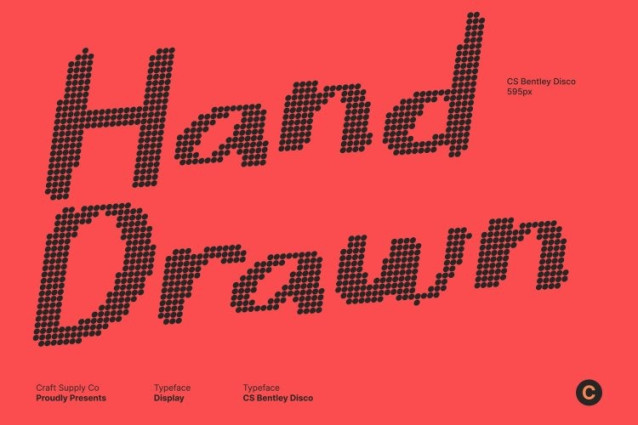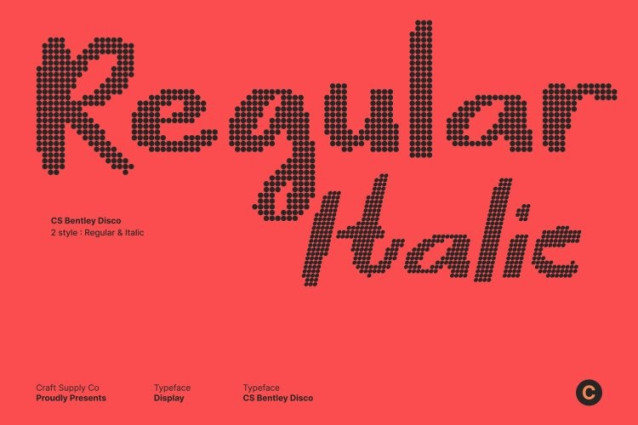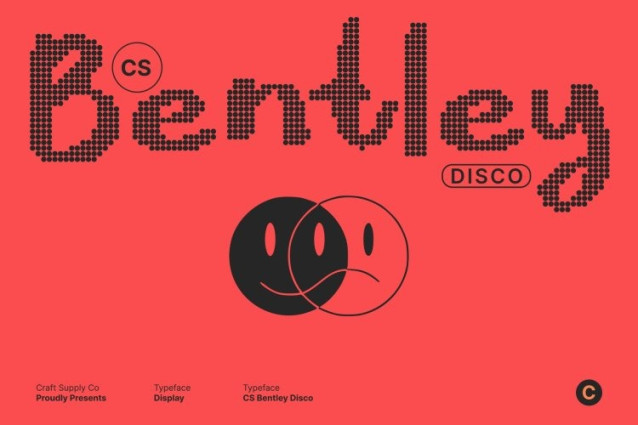
CS Bentley Disco Font
CS Bentley Disco Font This is a soft, expressive handwritten font that captures the natural flow of pen strokes with ease and warmth. Each letter moves smoothly with an organic rhythm, enhanced by a subtle disco-era influence inspired by the relaxed, feel-good creativity of the 70s to early 80s. The result is a handwritten style that feels personal, joyful, and effortlessly inviting.
Warm, Authentic Texture with Retro Soul
Delicate imperfections give this font a handcrafted texture that feels genuine and human. Its natural movement and soft curves reflect a laid-back retro spirit evoking cozy moments, warm lights, and carefree creativity. This balance of authenticity and nostalgic charm makes the font feel friendly, expressive, and emotionally engaging.
Perfect for Personal Branding and Cheerful Quotes
This font shines in personal branding projects that value closeness and personality. From signature-style logos and lifestyle branding to social media graphics, it adds an intimate, relatable touch. Its expressive flow also makes it ideal for inspirational quotes, handwritten captions, and creative text that needs warmth and positive energy.
Ideal for Casual Invitations and Relaxed Creative Designs
Whether used for casual invitations, greeting cards, journals, or handmade-inspired print layouts, this font delivers effortless charm with a soft retro mood. Its gentle handwritten style gives every design a heartfelt, cheerful tone perfect for projects that want to feel meaningful, warm, and full of character.